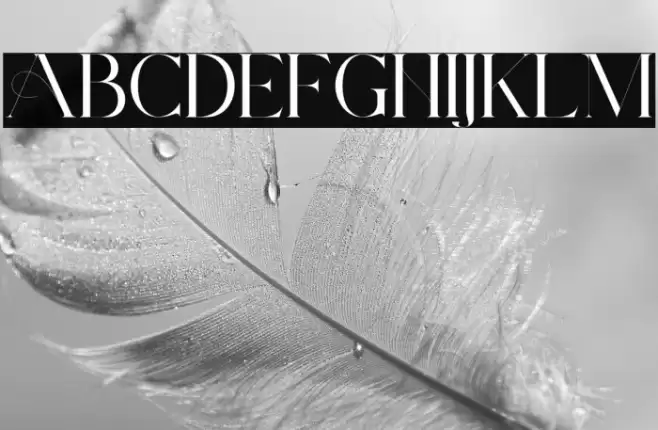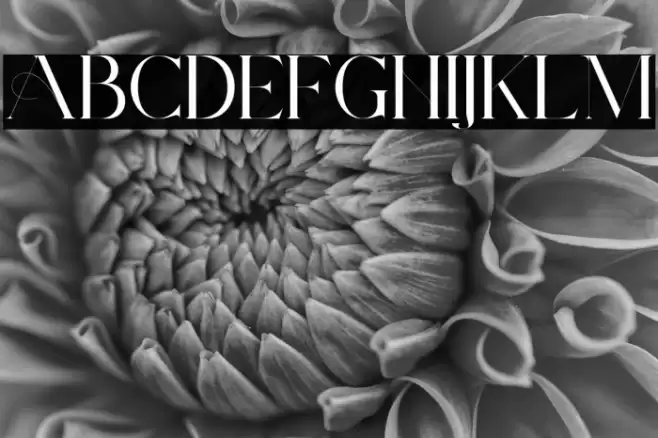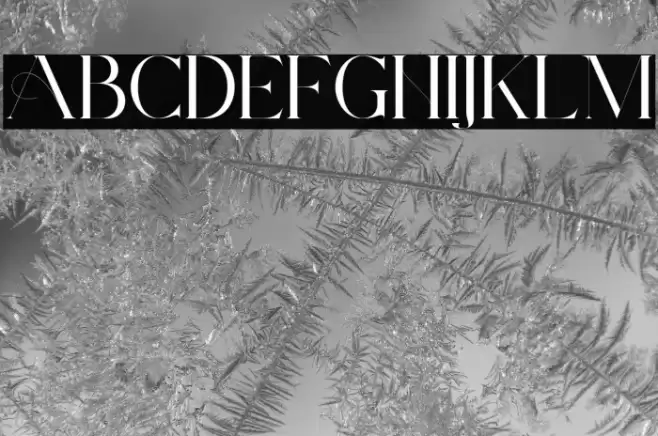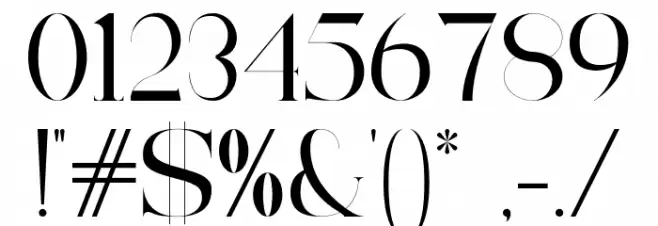
ArchwaltzDemo-Regular Font
ArchwaltzDemo-Regular Description
This font features a unique blend of elegance and modernity, characterized by its high contrast between thick and thin strokes. The uppercase letters exhibit a sophisticated flair with subtle curves and sharp serifs, while the lowercase letters maintain a graceful continuity. The numerals are distinct and stylish, complementing the overall aesthetic. Special characters are thoughtfully designed, adding to the font's versatility. This typeface is perfect for creating a striking visual impact, with its refined details and artistic touches.
An elegant, high-contrast serif font with artistic flair from Uncategorized fonts.